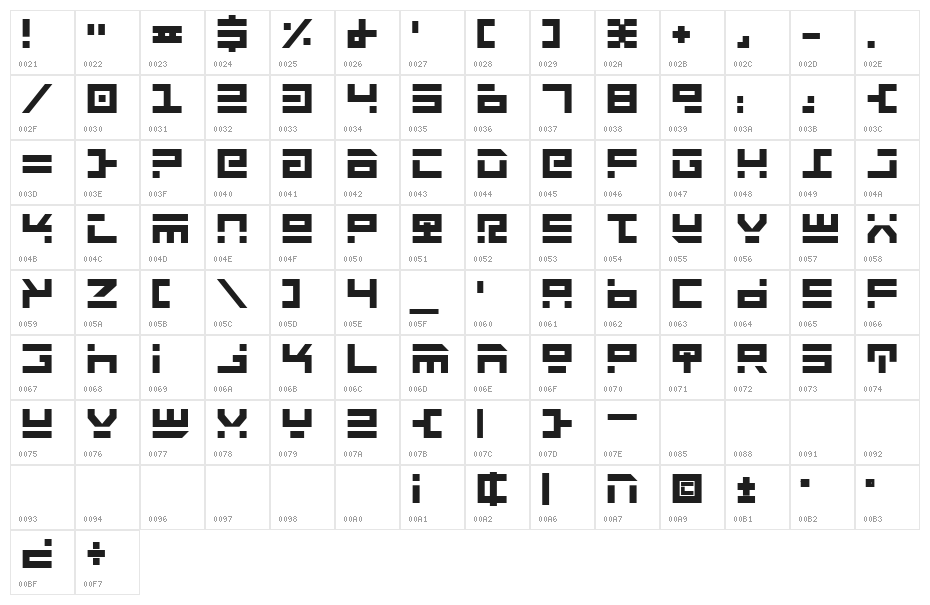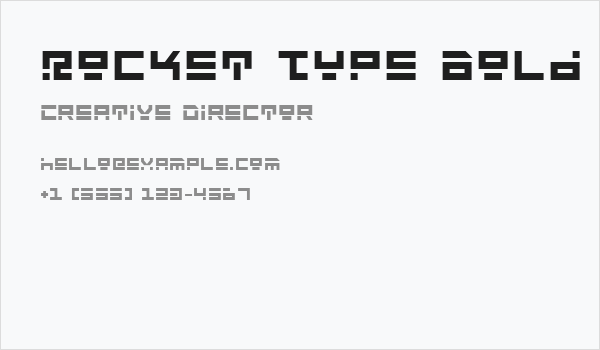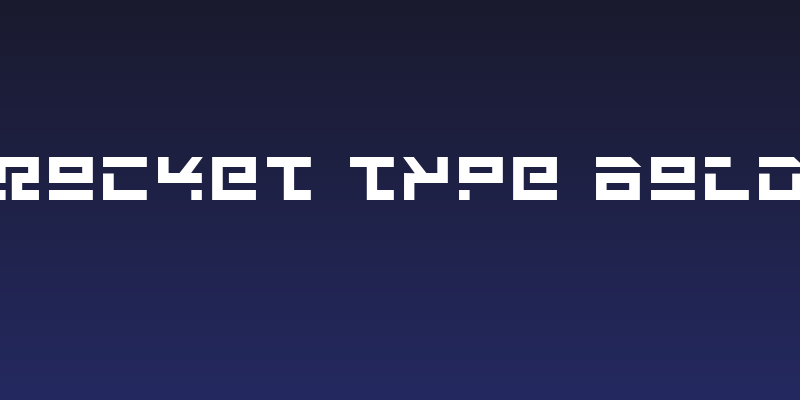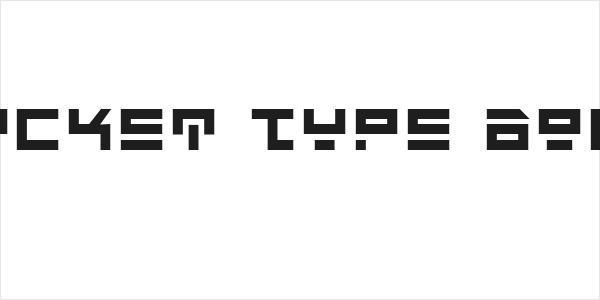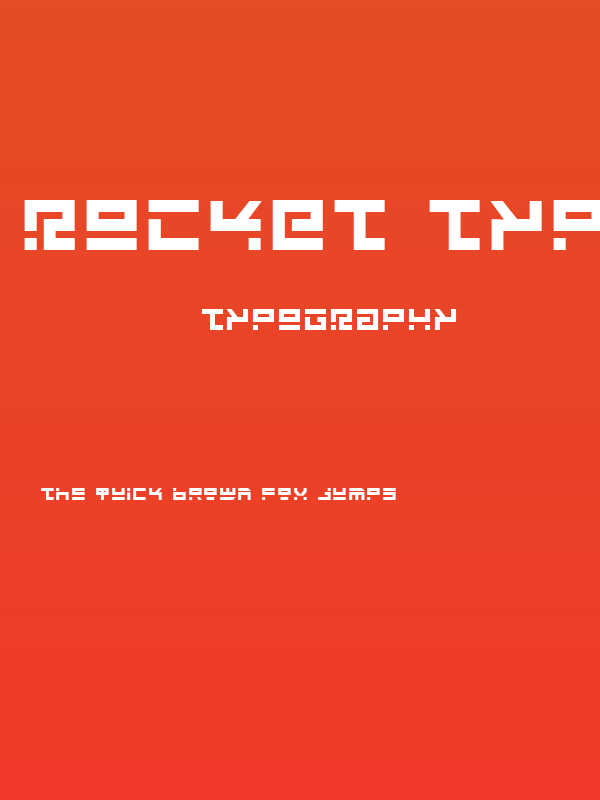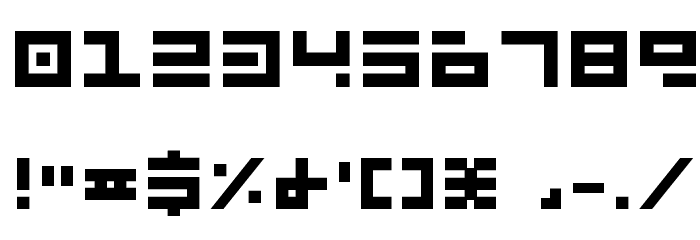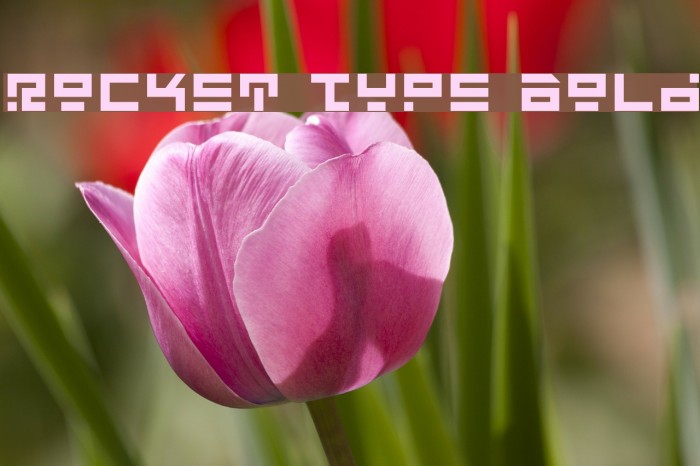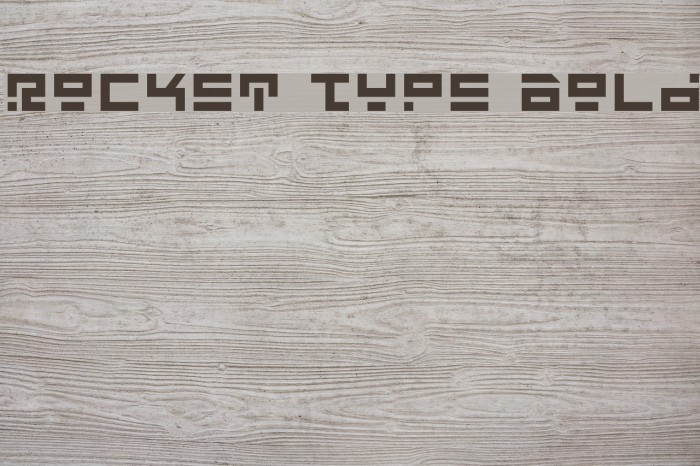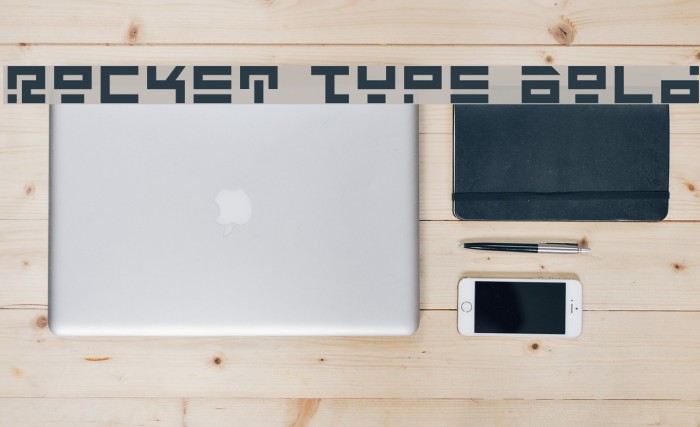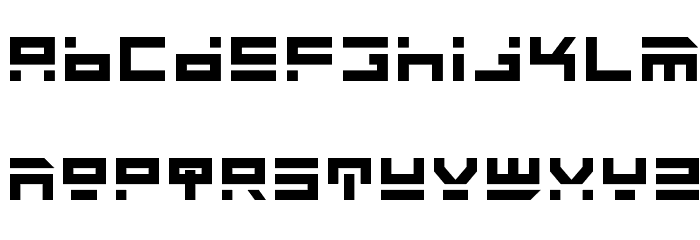
Rocket Type Bold Font
Rocket Type Bold Description
This font features a bold, geometric design with a futuristic and digital aesthetic. The characters are constructed with sharp angles and straight lines, giving it a blocky and robust appearance. The uppercase and lowercase letters share a consistent style, emphasizing uniformity and cohesion. The numerals and special characters maintain the same geometric structure, ensuring a seamless integration across all text elements. The font's unique style makes it stand out, ideal for projects that require a modern and tech-savvy look.
| Proposed Projects | Ideal for technology branding, video game titles, sci-fi movie posters, and digital interfaces. |